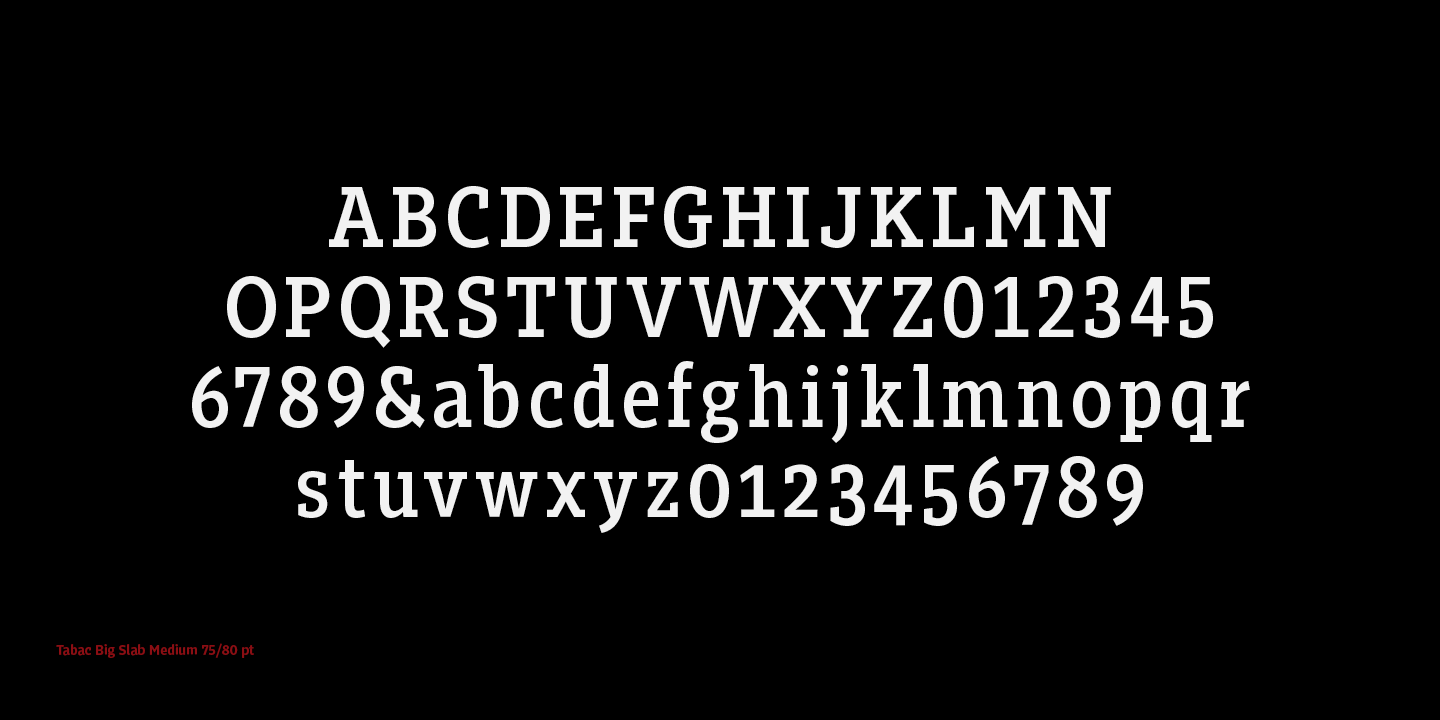
Tabac Big Slab Font is a monumental and impactful slab serif typeface, renowned for its sturdy construction, bold presence, and exceptional legibility.1 Its robust, almost block-like serifs and commanding proportions make it an outstanding choice for projects that demand attention and convey a sense of unwavering strength and reliability. Imagine it perfect for masculine branding, impactful magazine headlines, durable product packaging (especially for tobacco, spirits, or tools), sports team logos, commanding advertising campaigns, and strong editorial layouts. This font excels in environments where immediate recognition, a powerful visual identity, and a sense of established authority are paramount. It’s particularly effective for conveying confidence, tradition, and an undeniable sense of bold originality, ensuring your message not only stands out but also resonates with a powerful and memorable impact.
What makes Tabac Big Slab Font truly exciting is its fearless approach to typography, offering a visually commanding presence that feels both aggressive and intelligently designed. Its assertive yet perfectly balanced letterforms create a striking aesthetic that is both memorable and highly functional, especially in display settings. The heavy, unbracketed serifs give it a grounded, almost architectural feel, lending a sense of weight and permanence to your text. This font isn't just about displaying text; it's about making a powerful declaration, injecting your designs with a sense of purpose and unyielding sophistication. It has a powerful ability to feel both incredibly strong and surprisingly versatile, making it an ideal tool for designers who want their work to convey strength, impact, and a truly memorable visual experience. Tabac Big Slab Font Free Download empowers brands and creatives to project an image of unwavering confidence and robust character.